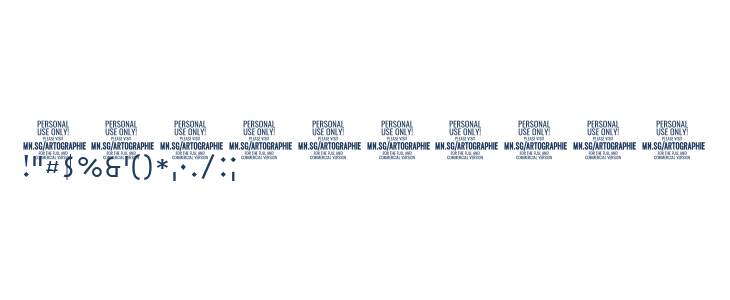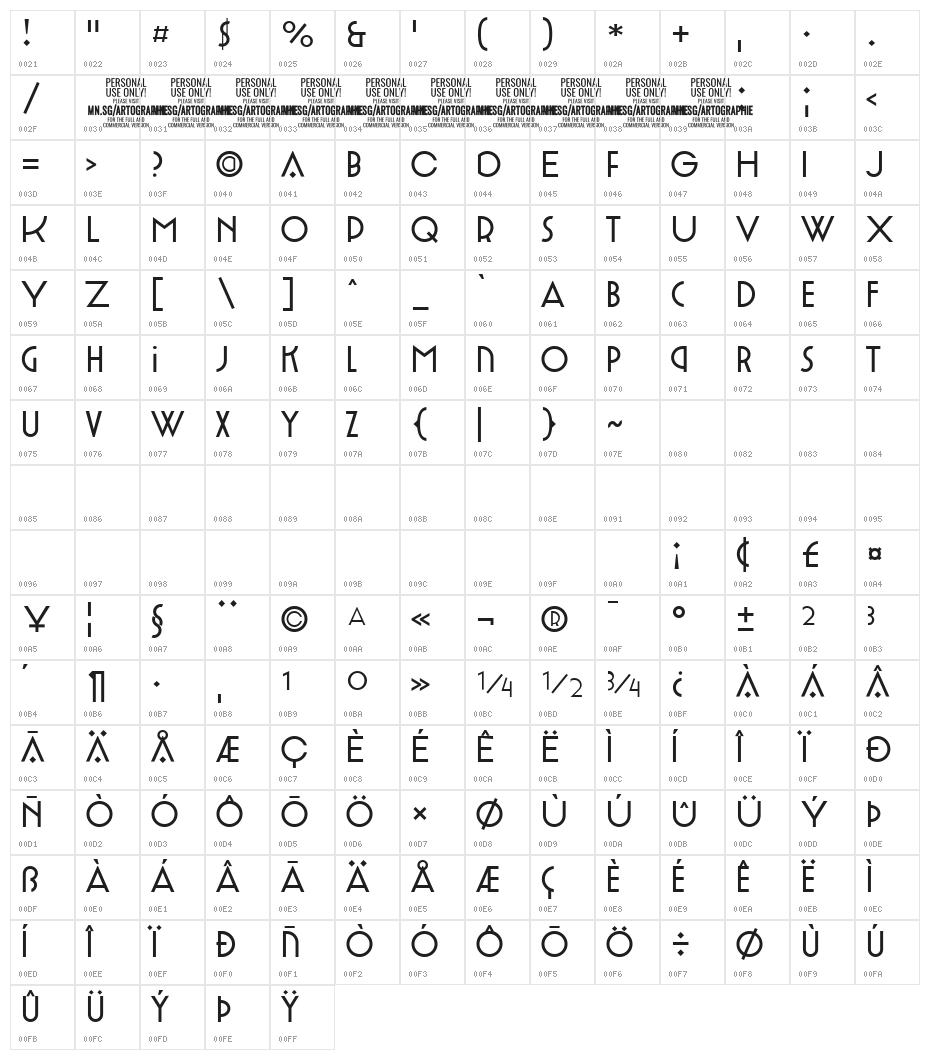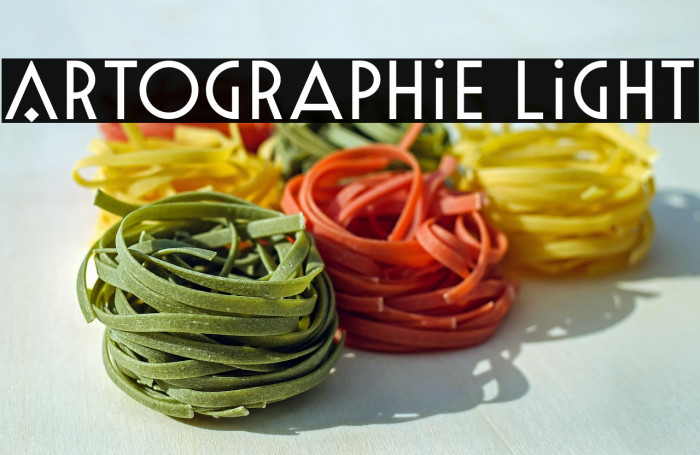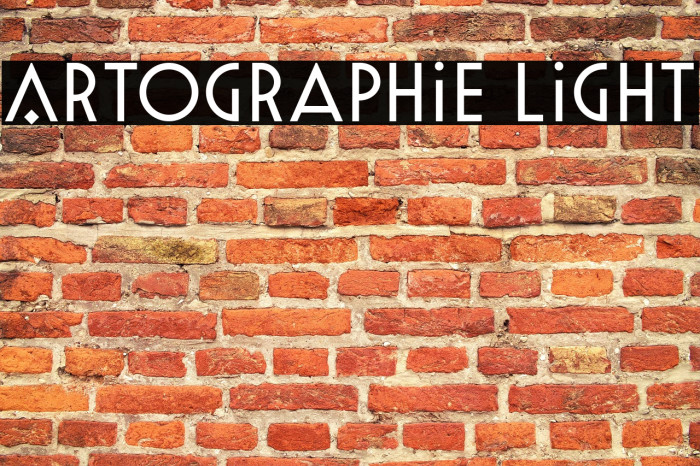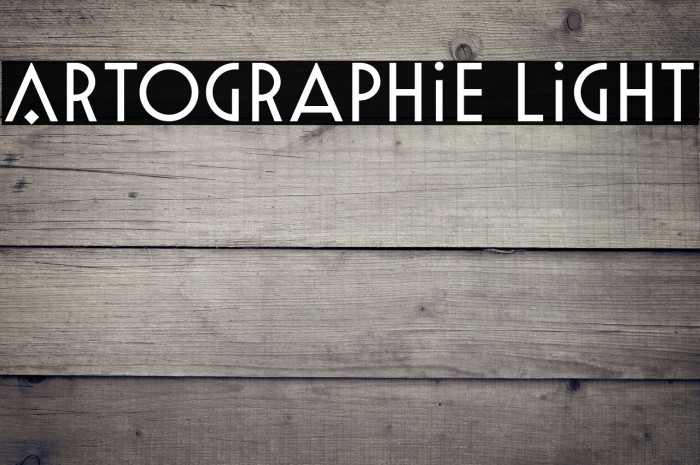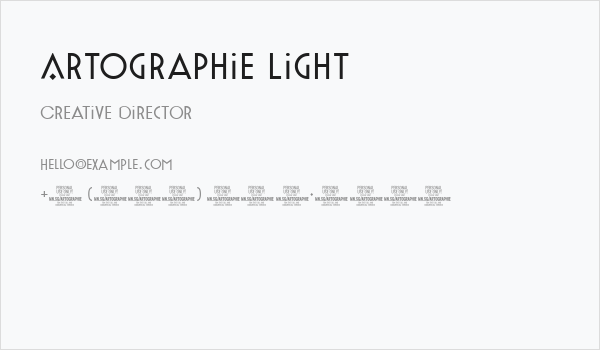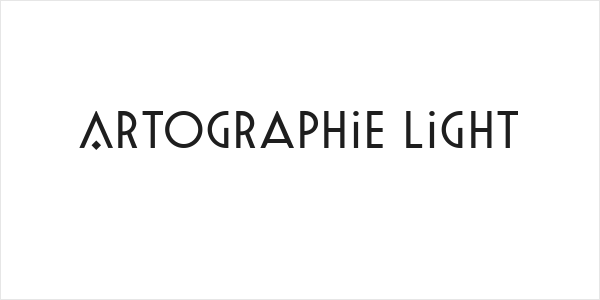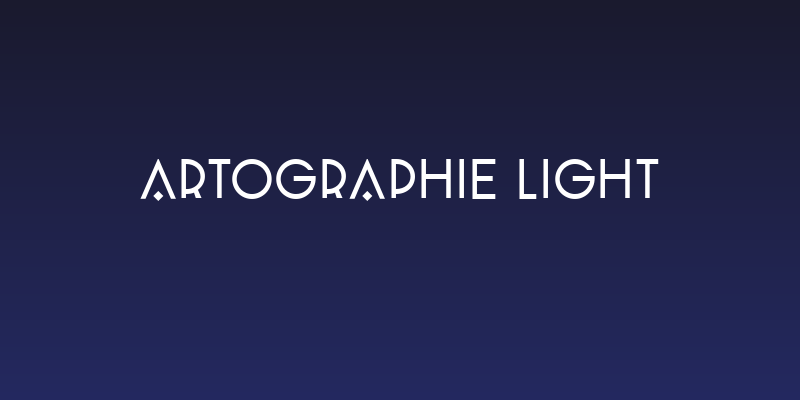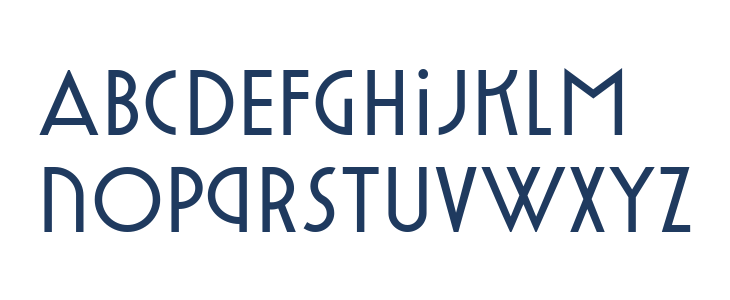
Artographie Light Font
Artographie Light Description
This font features a sleek and modern design with clean lines and geometric shapes. The uppercase letters are distinct with sharp angles and a uniform height, while the lowercase letters maintain a consistent style, offering a harmonious blend of formality and creativity. The numerals and special characters are crafted with precision, enhancing the font's versatility. Its minimalist aesthetic makes it suitable for contemporary designs, providing a sophisticated yet approachable feel.